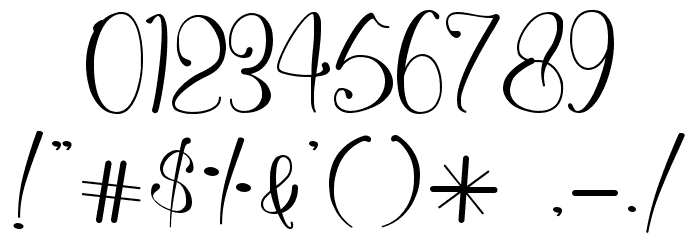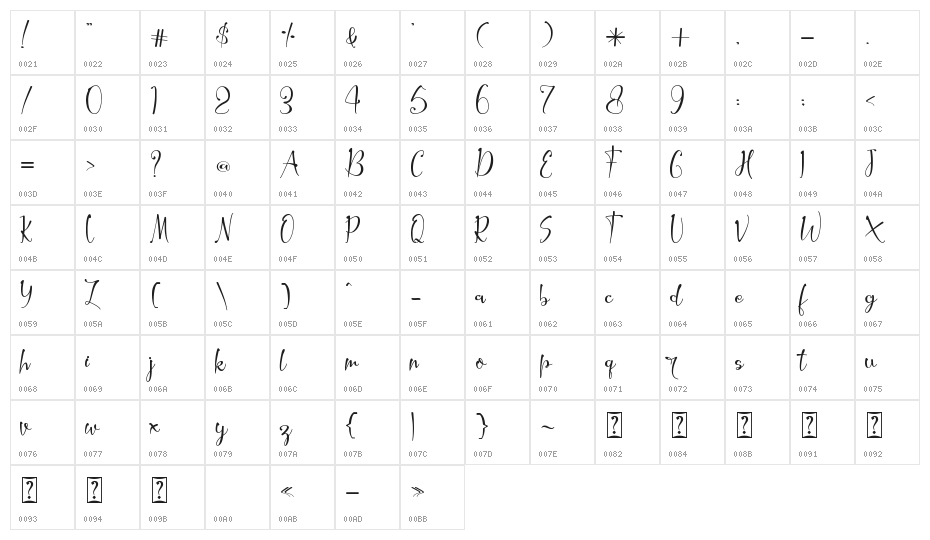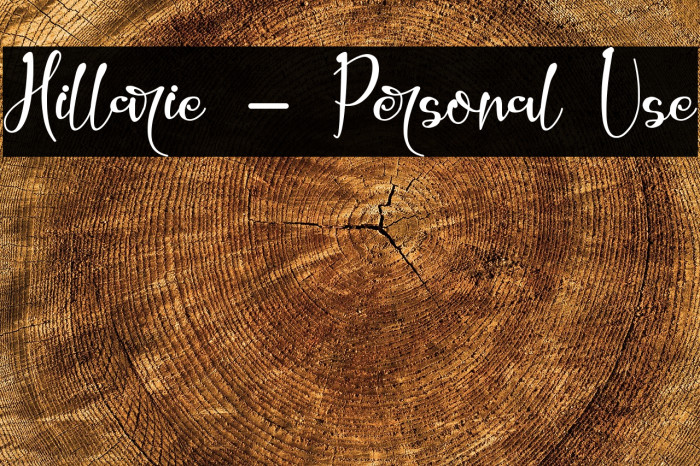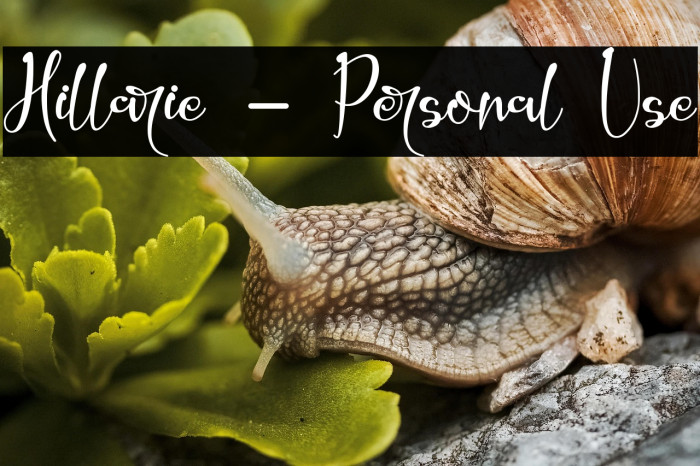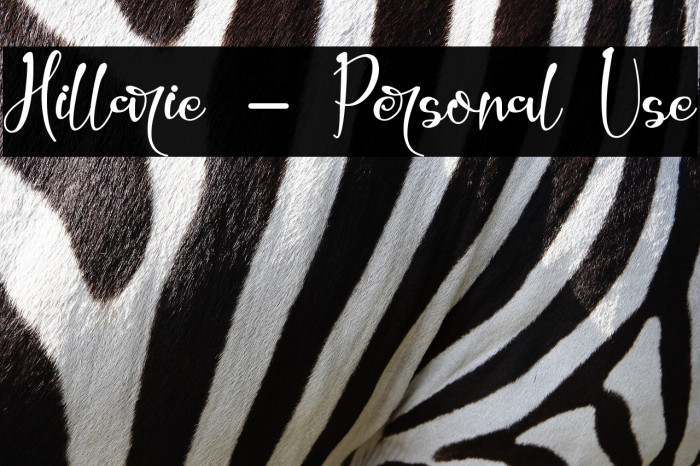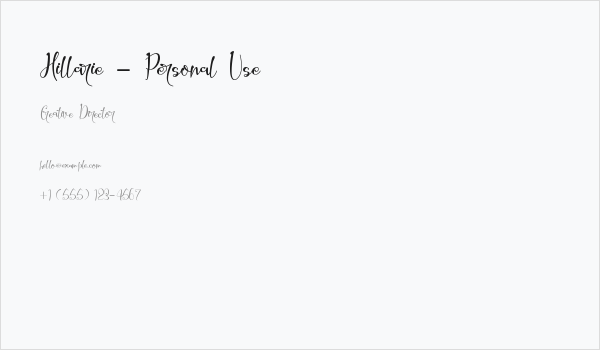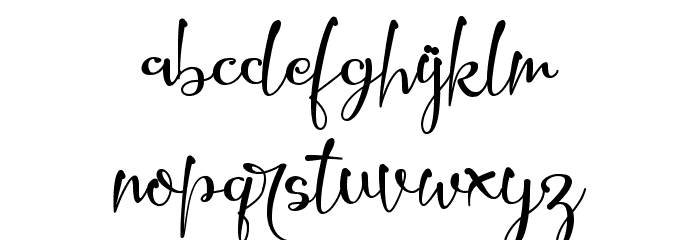
Hillarie - Personal Use Font
Hillarie - Personal Use Description
This font features an elegant and flowing script style with a modern twist. The uppercase letters are tall and slightly narrow, with a playful, handwritten feel that adds personality to any text. The lowercase letters maintain a consistent style, with smooth curves and a slight slant that enhances readability. Numbers are designed with a similar flair, ensuring uniformity across all characters. Special characters are thoughtfully crafted to match the overall aesthetic, making this font suitable for a variety of creative projects.
| Use Case | Logos, Invitations, Headlines |
| Proposed Projects | Ideal for wedding invitations, greeting cards, branding, and social media graphics. |